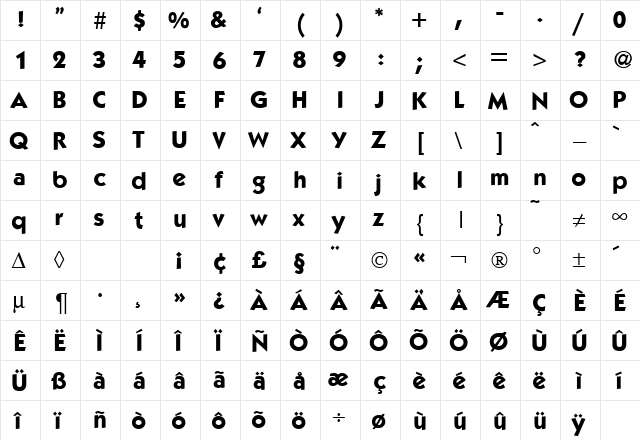
KochModern Bold
Design Context for KochModern Typeface
KochModern offers clean, dependable letterforms without strong stylistic allegiance, making it a practical choice for designers who need flexibility. The heavy weight commands attention and anchors typographic hierarchies.